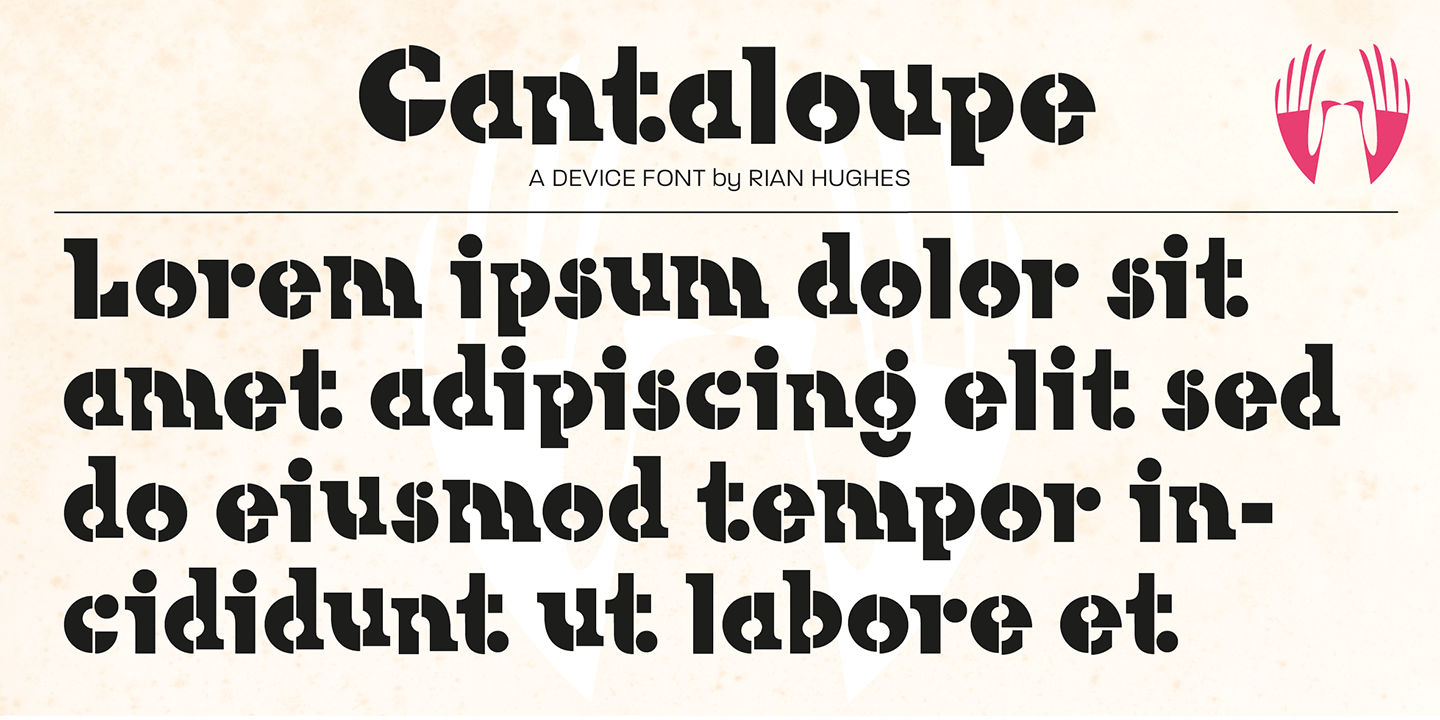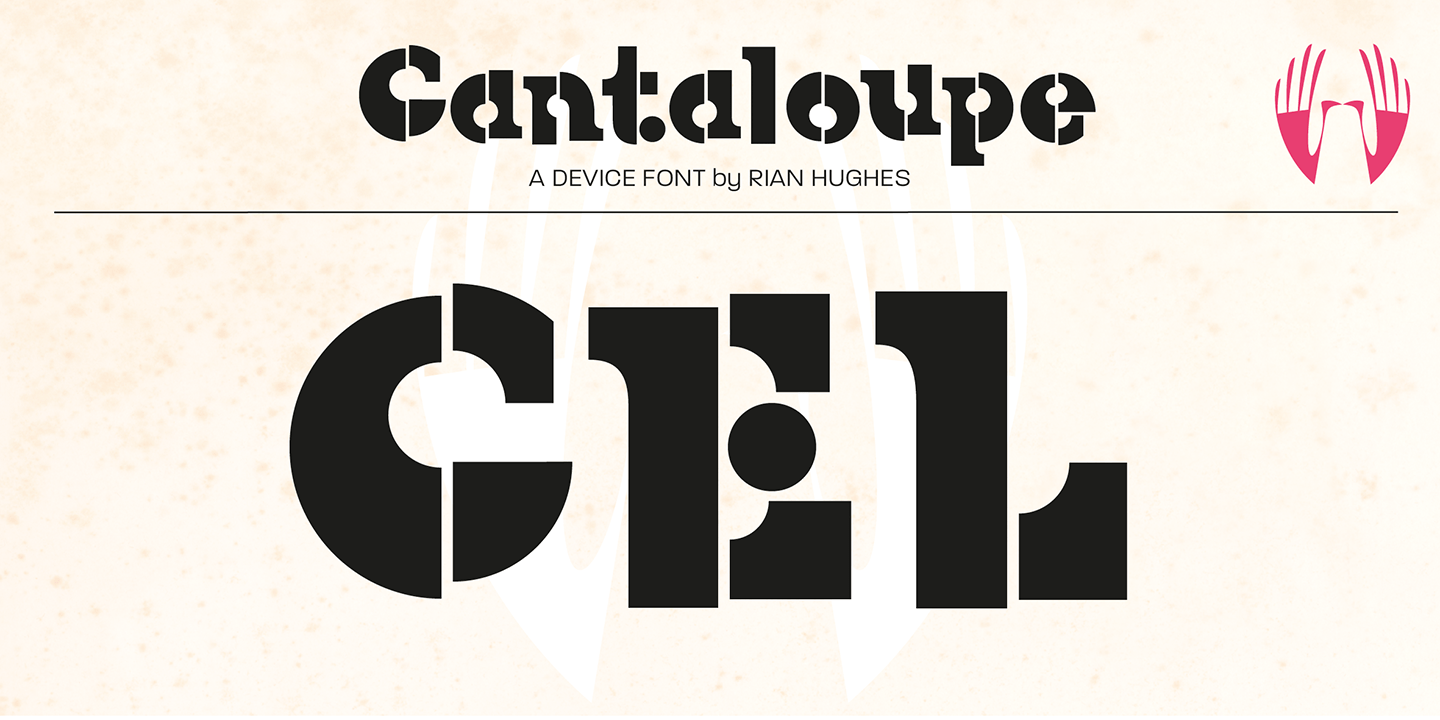
Cantaloupe
Font Family by Device
Cantaloupe is a fun, wacky display font family from Device with a bold special-effect feel. Its playful personality gives type a lively, offbeat presence that stands out quickly, making it a strong choice when you want lettering to feel graphic, energetic, and a little unexpected.
With 1 included style, this family is best suited to attention-grabbing display work rather than quiet body copy. It makes sense for posters, packaging, signage, social graphics, logos, and other creative branding pieces where a quirky, expressive look can do the heavy lifting.